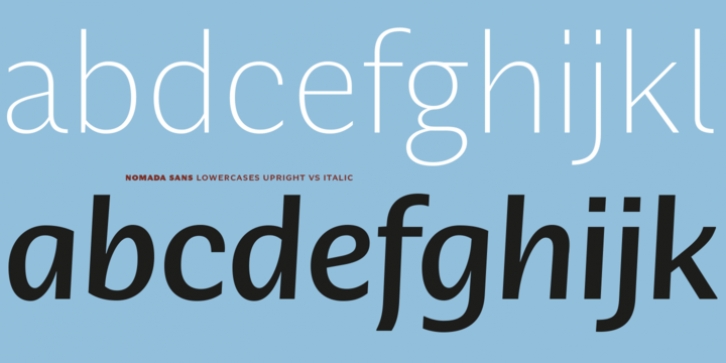
Nomada Sans was designed by Jordi Embodas and published by Tipografies. Nomada Sans contains 18 styles and family package options.
The design of Nomada Sans is informed by the examination of several iconic sans serif typefaces, incorporating both lucidity and grace. The result is an entirely new and original typeface family infused with Latin flair. Nomada Sans reveals the essence of the Collection: Here, the structure is reduced to the max. The family comes in nine weights from the most delicate Hair to a punchy Extrablack, all with true italics. In the medium weights, Nomada Sans is a pleasant multi-purpose face and reads well in body copy, too. The generous x-height and open shapes ensure excellent legibility in even the smallest text sizes, while the lightest and boldest weights deliver impact to headlines and other display uses.